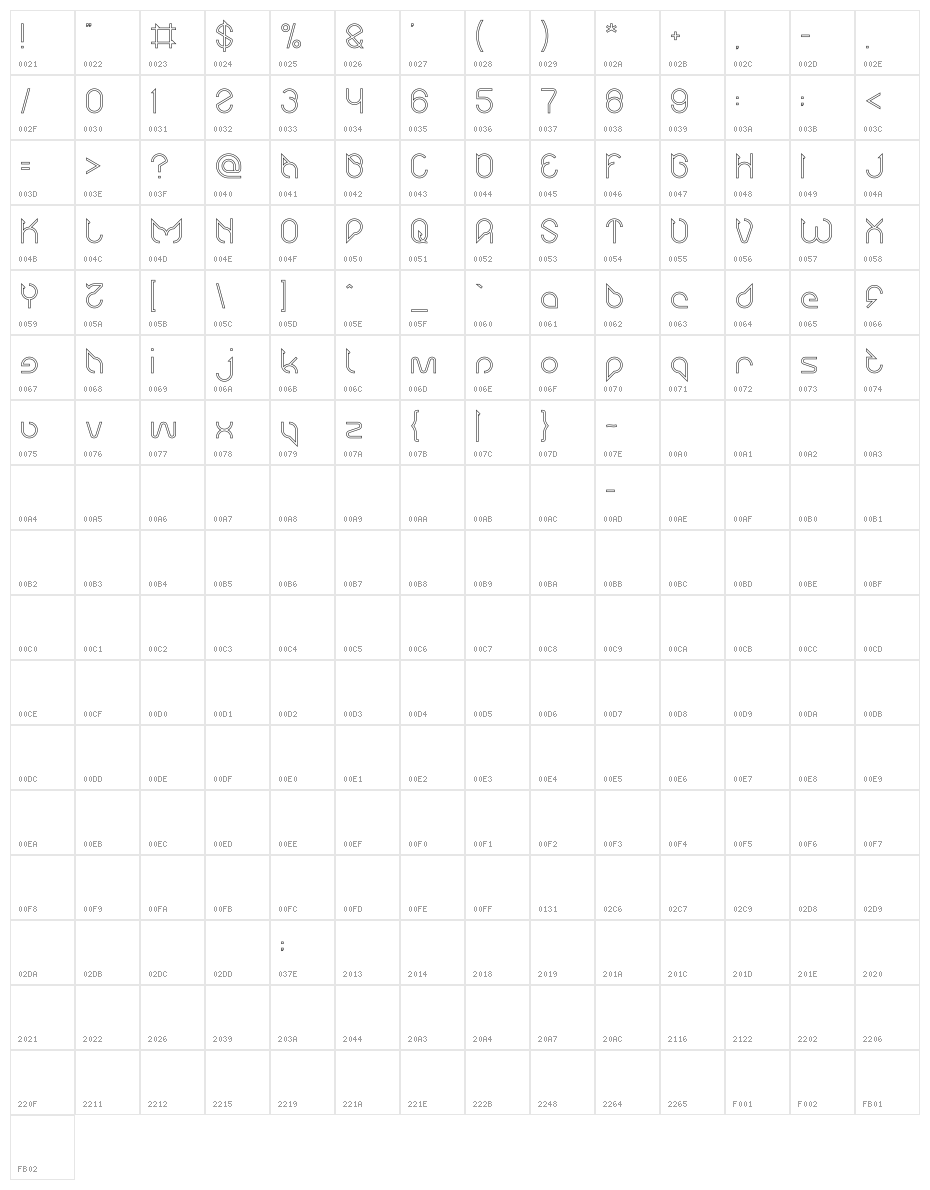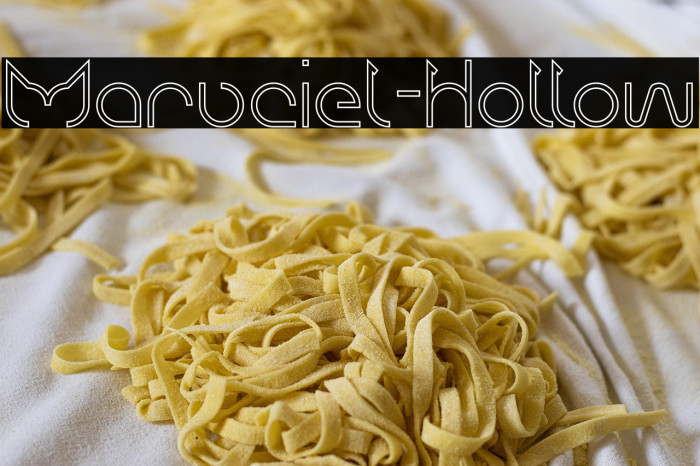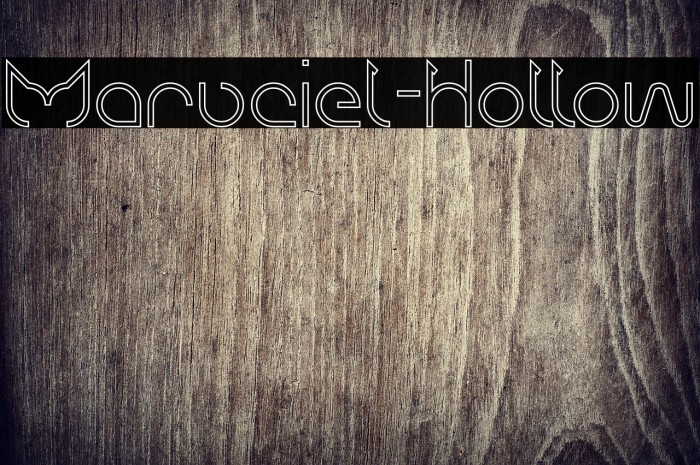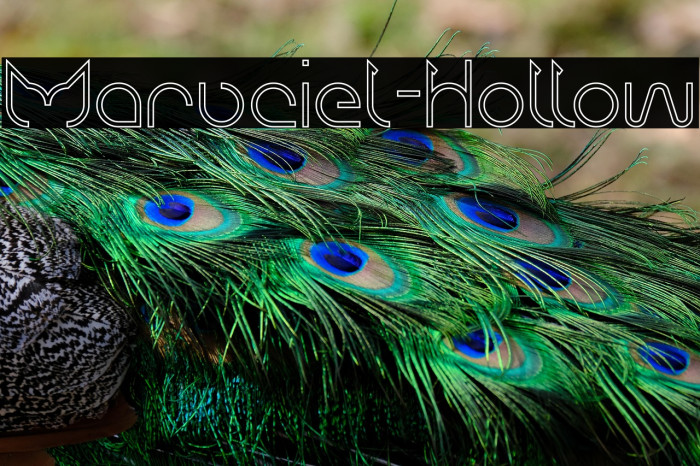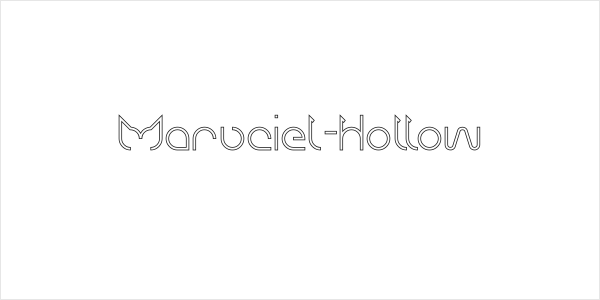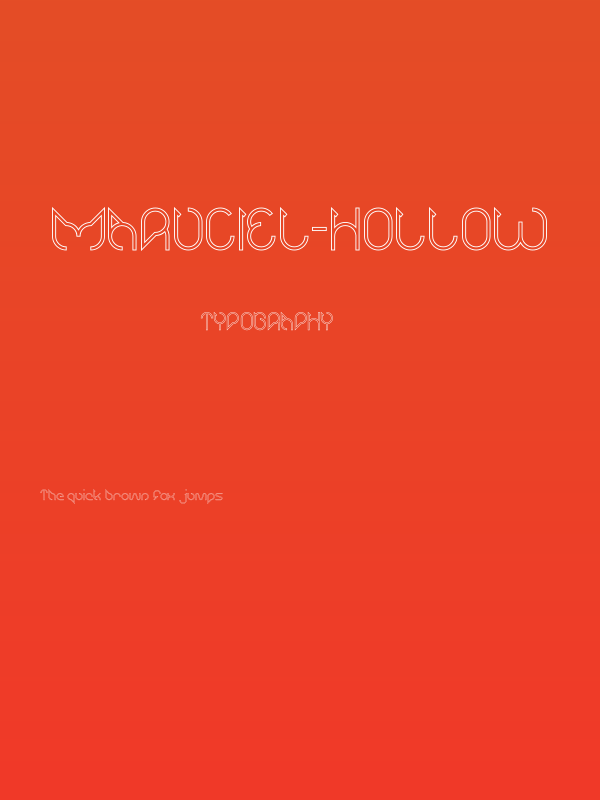
Maruciel-Hollow Font
Maruciel-Hollow Description
This font features a unique hollow design with geometric and angular elements, creating a futuristic and modern aesthetic. The uppercase and lowercase letters maintain a consistent style, characterized by sharp edges and clean lines. The numerals and special characters follow the same design principles, ensuring a cohesive look across all elements. The font's hollow nature gives it a light and airy feel, making it suitable for projects that require a contemporary and innovative touch. Its distinct appearance makes it stand out, ideal for creative and bold design applications.
Proposed ProjectsIdeal for sci-fi themed projects, modern branding, innovative product packaging, and digital media designs.